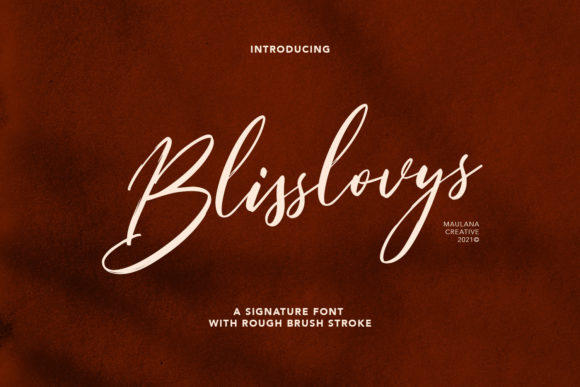
The Blisslovys Font: Elevate Your Designs with Elegance
Have you ever been in the middle of a design project, and suddenly, you’re stuck on finding the perfect font? I recall a particularly frustrating experience while working on a wedding invitation design. My client wanted an elegant, yet modern script font that would make their special day feel truly unforgettable. After scouring through countless font libraries, I stumbled upon Blisslovys – a beautiful script font that instantly elevated my design. In this article, I’ll share my experience with Blisslovys, its features, and how to make the most of this stunning font.
An Honest Review of Blisslovys
What I Love About Blisslovys
• ✨ Elegant and modern script style, perfect for high-end designs
• ✅ Well-balanced and varied strokes, making it easy to read
• 💫 Impeccable form and classic calligraphy inspiration
• 🎨 Highly versatile, suitable for various design projects, from wedding invitations to branding
While Blisslovys is an exceptional font, there are a few minor quirks to be aware of:
• 🤔 Some users might find the font not suitable for very large or very small font sizes, as it may lose its elegance.
• ⚠️ As with many script fonts, it may not be the best choice for body text or long paragraphs.
The Story Behind Blisslovys
Blisslovys was designed with the intention of capturing the essence of timeless classic calligraphy, while infusing it with a contemporary atmosphere. The creator aimed to craft a font that would be neither too thin nor too thick, but rather, perfectly balanced and varied. This attention to detail makes Blisslovys an excellent choice for designers and crafters seeking to elevate their projects with elegance.
Q: What type of designs is Blisslovys best suited for?
A: Blisslovys is an excellent choice for designs that require an elegant and modern script font, such as wedding invitations, branding, and packaging.
Q: Is Blisslovys suitable for body text?
A: While Blisslovys is a beautiful font, it’s not recommended for body text or long paragraphs. It’s best used for headlines, titles, or short text elements.
Q: Does Blisslovys support OpenType features?
A: Yes, Blisslovys supports OpenType features, including ligatures, stylistic alternates, and glyphs, allowing you to add more creativity and flair to your designs.